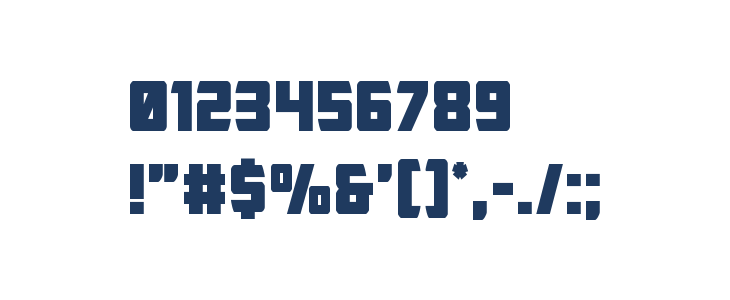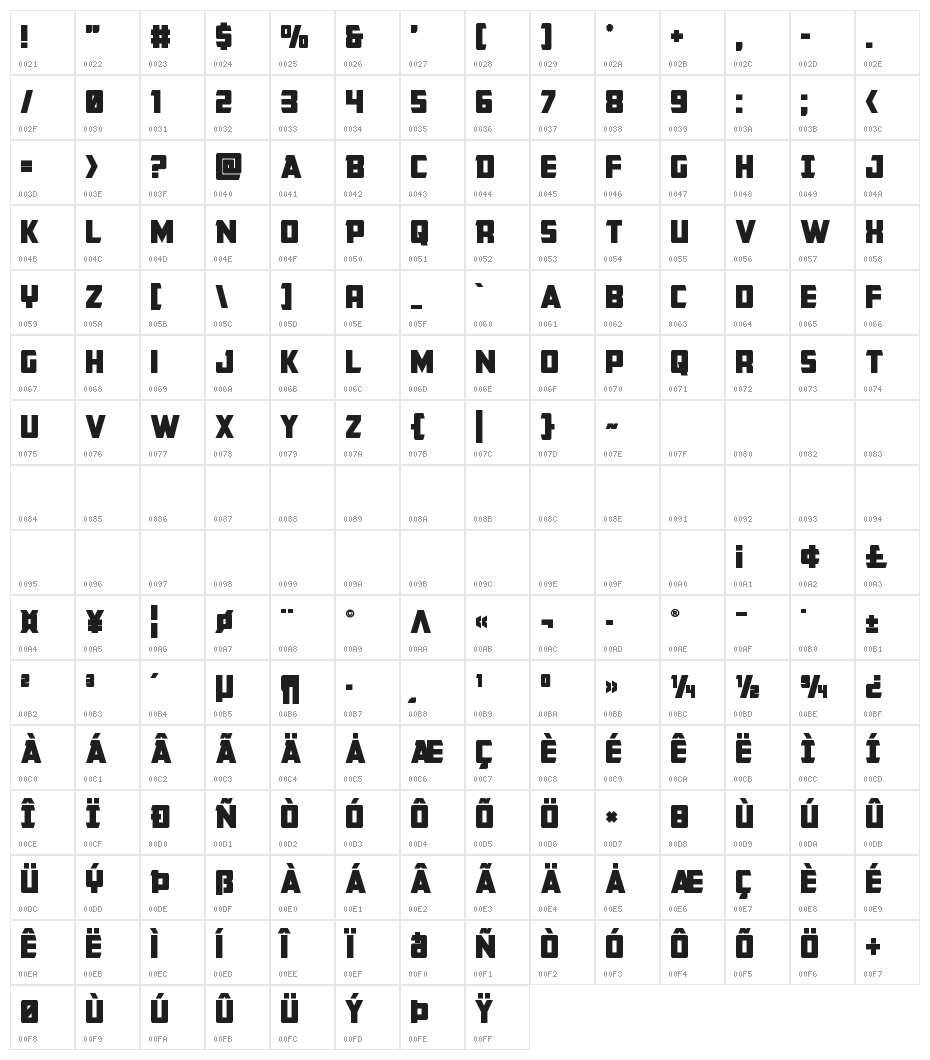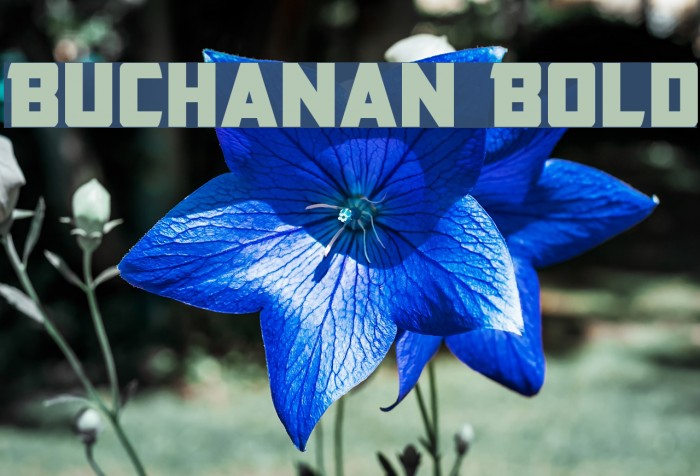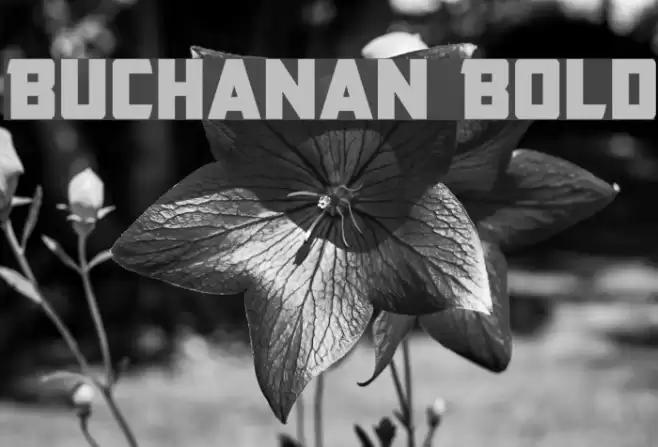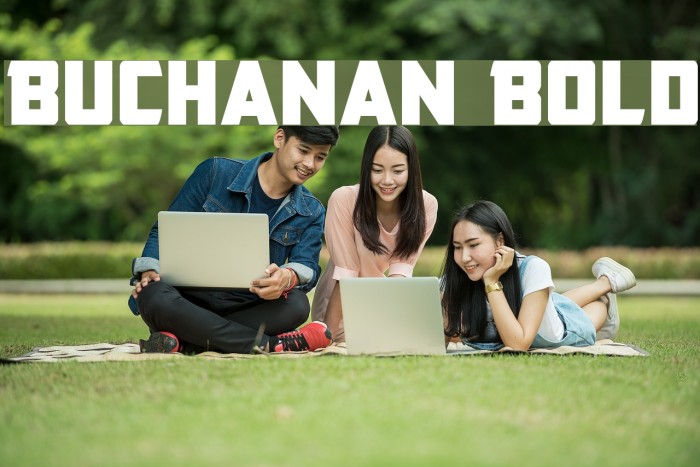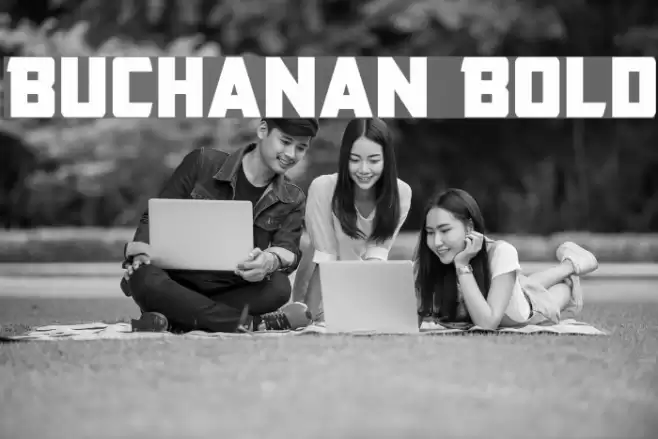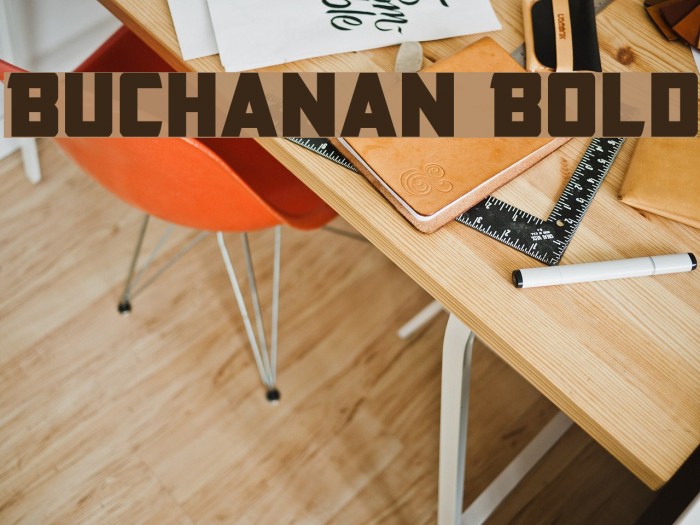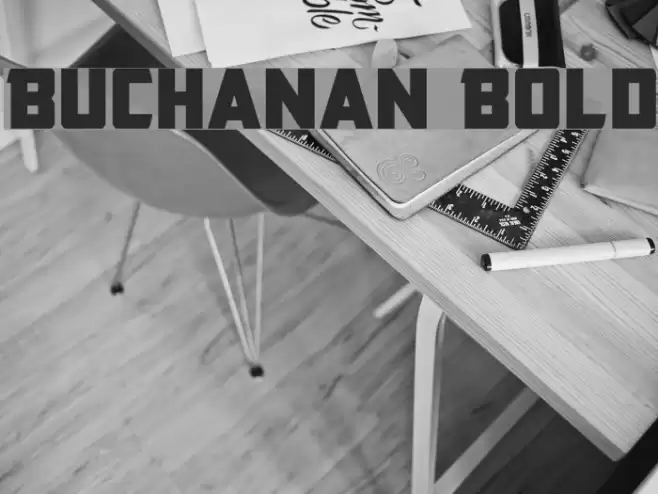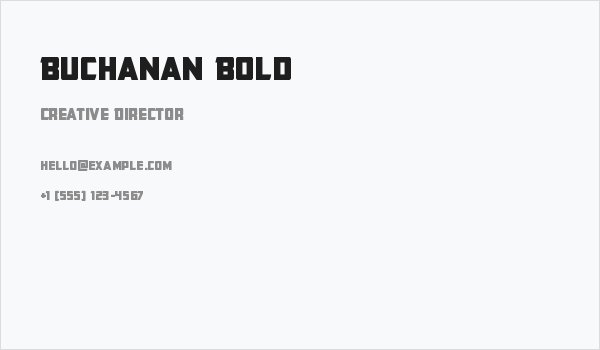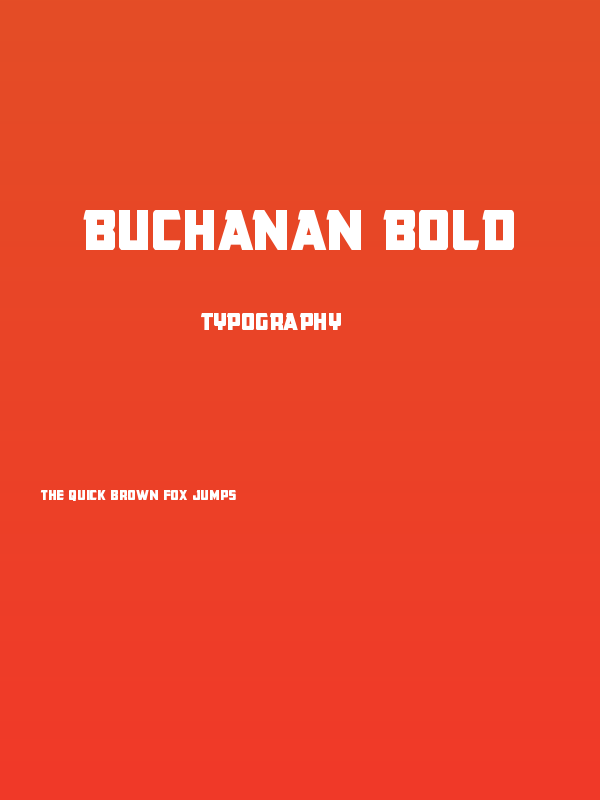
Buchanan Bold Font
Buchanan Bold Description
This font features a bold and impactful design with strong geometric shapes and a solid presence. The uppercase and lowercase letters are crafted with a uniform thickness, giving them a robust and sturdy appearance. The characters are slightly condensed, which enhances their compact and powerful look. The numbers and special characters maintain the same bold style, ensuring consistency across all elements. This font's design is ideal for making a statement, with its high contrast and clear legibility.
| Proposed Projects | Ideal for branding, posters, headlines, and any project requiring a bold statement. |